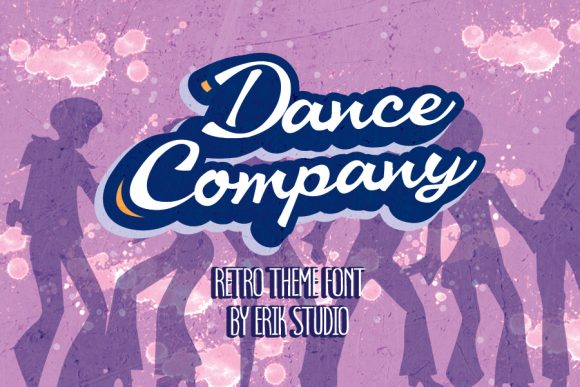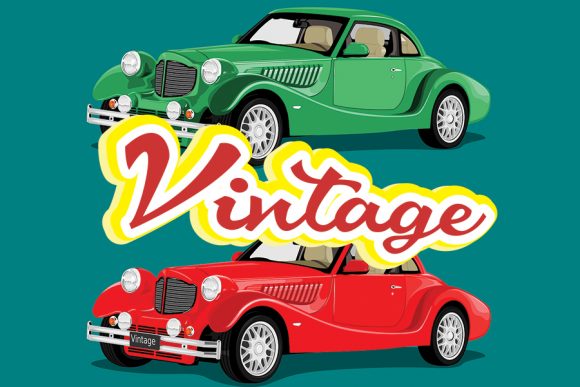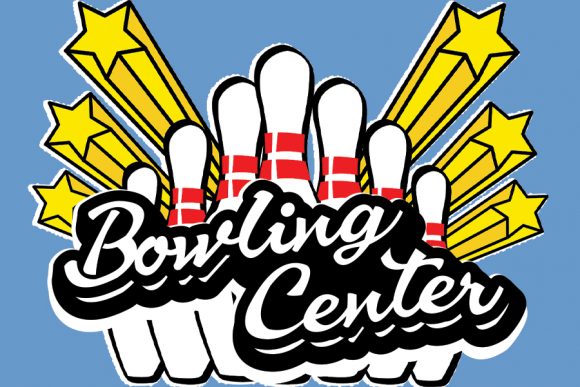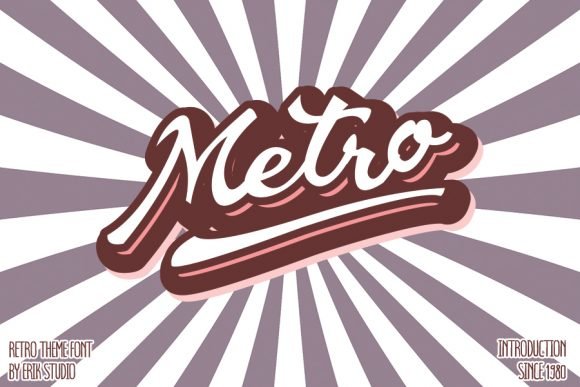
Introduction to Metro Font
Metro is a vintage styled and flowing handwritten font, crafted to give your headlines and logotype projects a stylish touch.
This font reads as strong, confident, and dynamic and can add tons of nostalgic character to your designs .